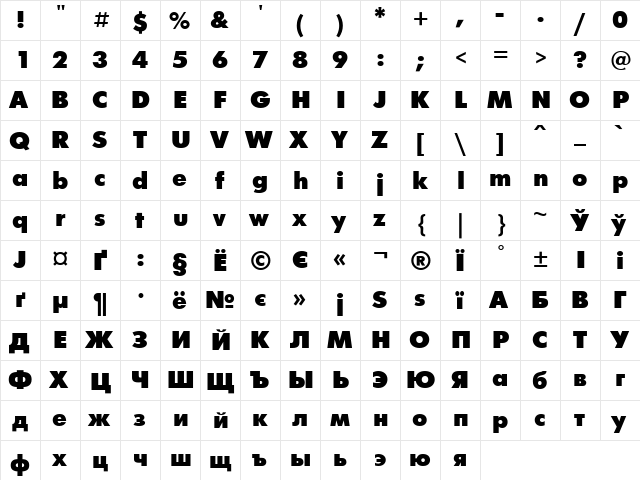
UkrainianFuturisExtra Bold
Design Context for UkrainianFuturisExtra Typeface
UkrainianFuturisExtra has a distinctly futuristic character, with geometric precision and clean angles that feel at home in technology, gaming, and sci-fi contexts. The heavy weight commands attention and anchors typographic hierarchies.
Pro Tip: Try UkrainianFuturisExtra with generous letter-spacing in UI labels and navigation — the geometric forms benefit from room to breathe.